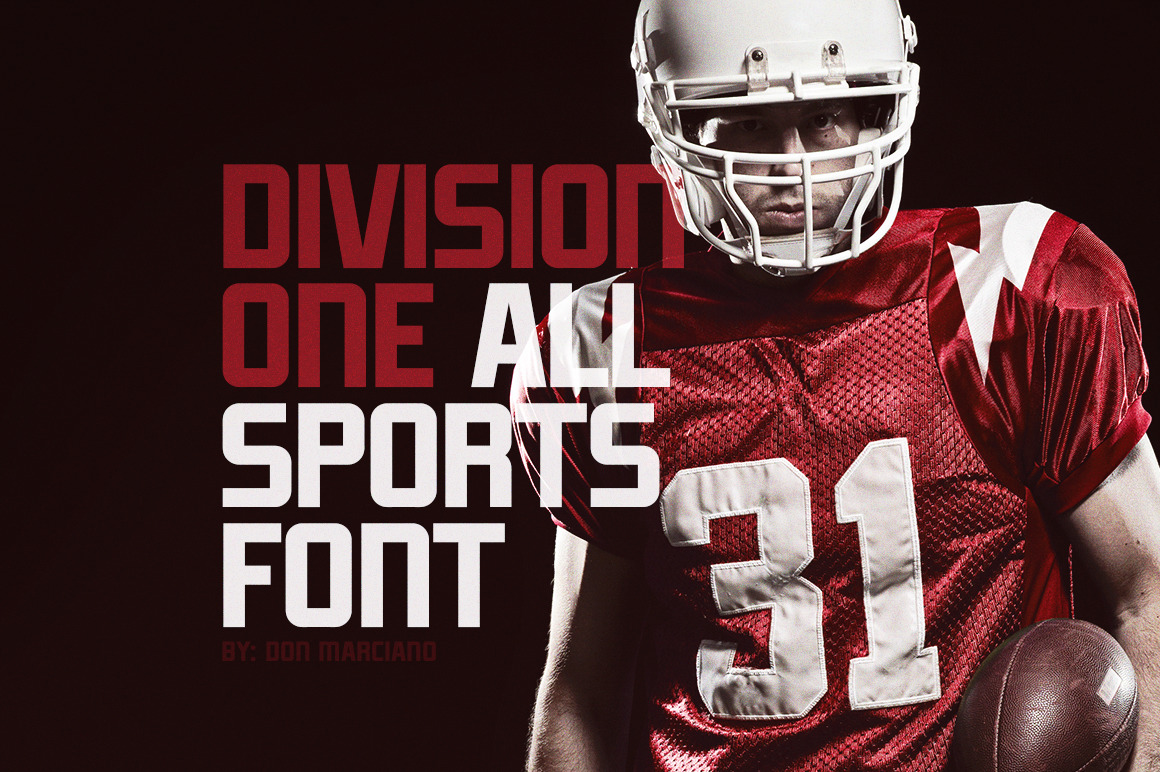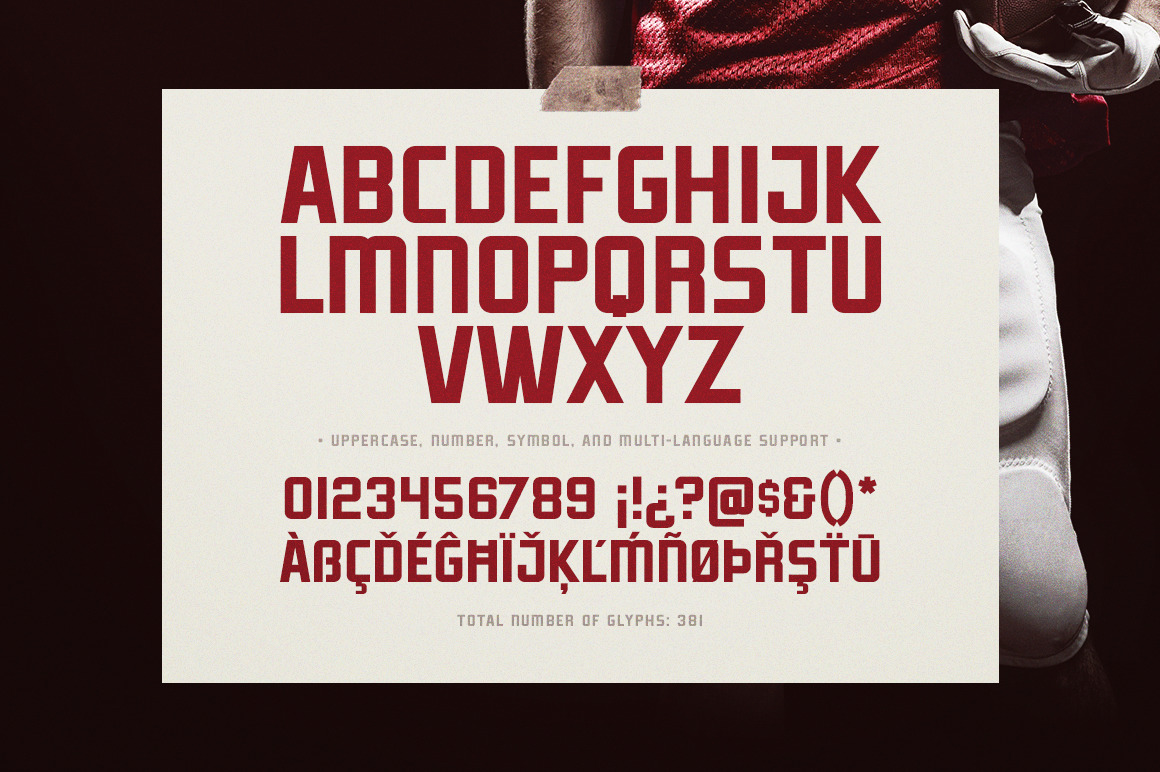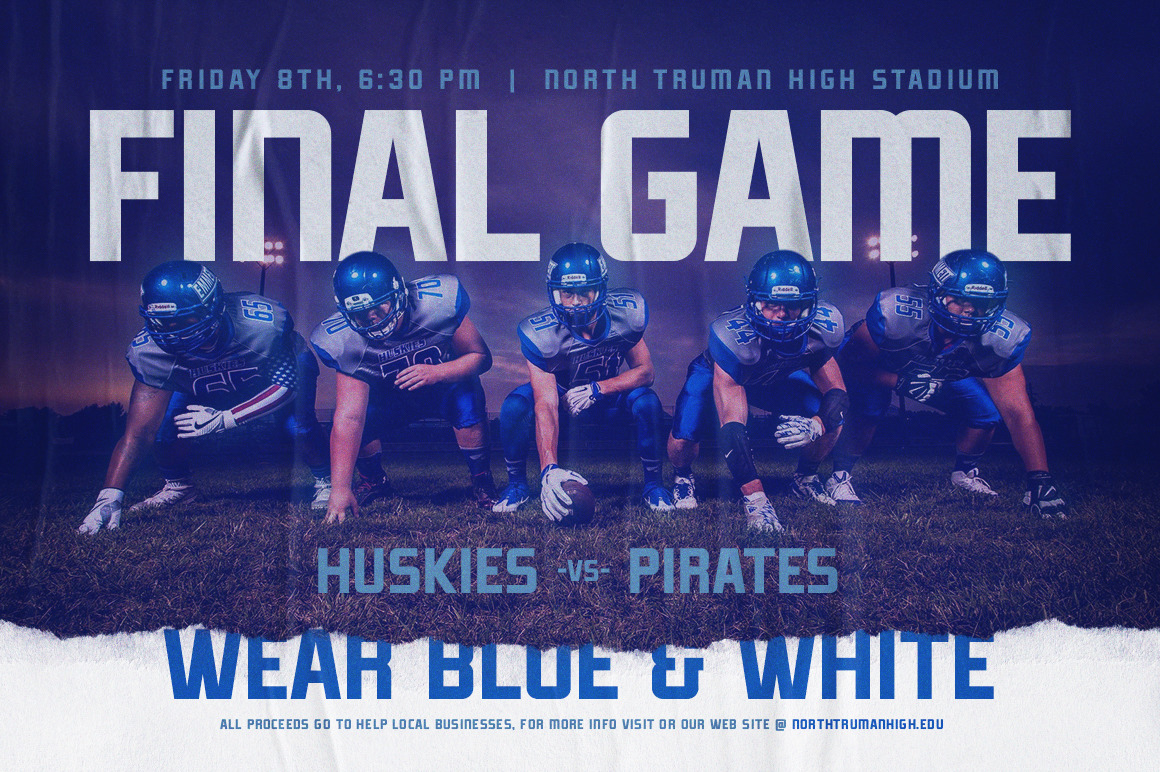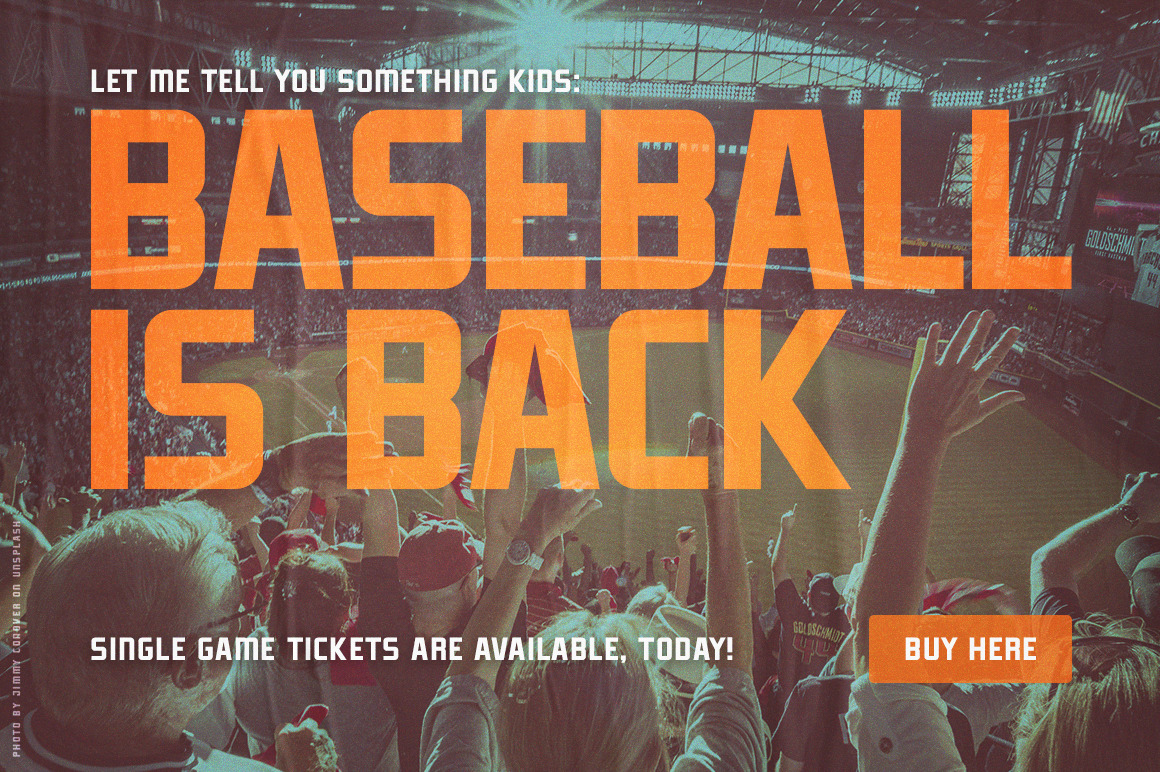
Division One Font
Division One is a bold font created for reinforcing the sense of strong athletes in any type of design, with a modern aesthetic and clean look and feel this font offers a liner and taller appearance that helps accentuate any type of sport-related design. The file includes uppercase characters, standard punctuation, and international characters for multi-language support features to help you create amazing design results.